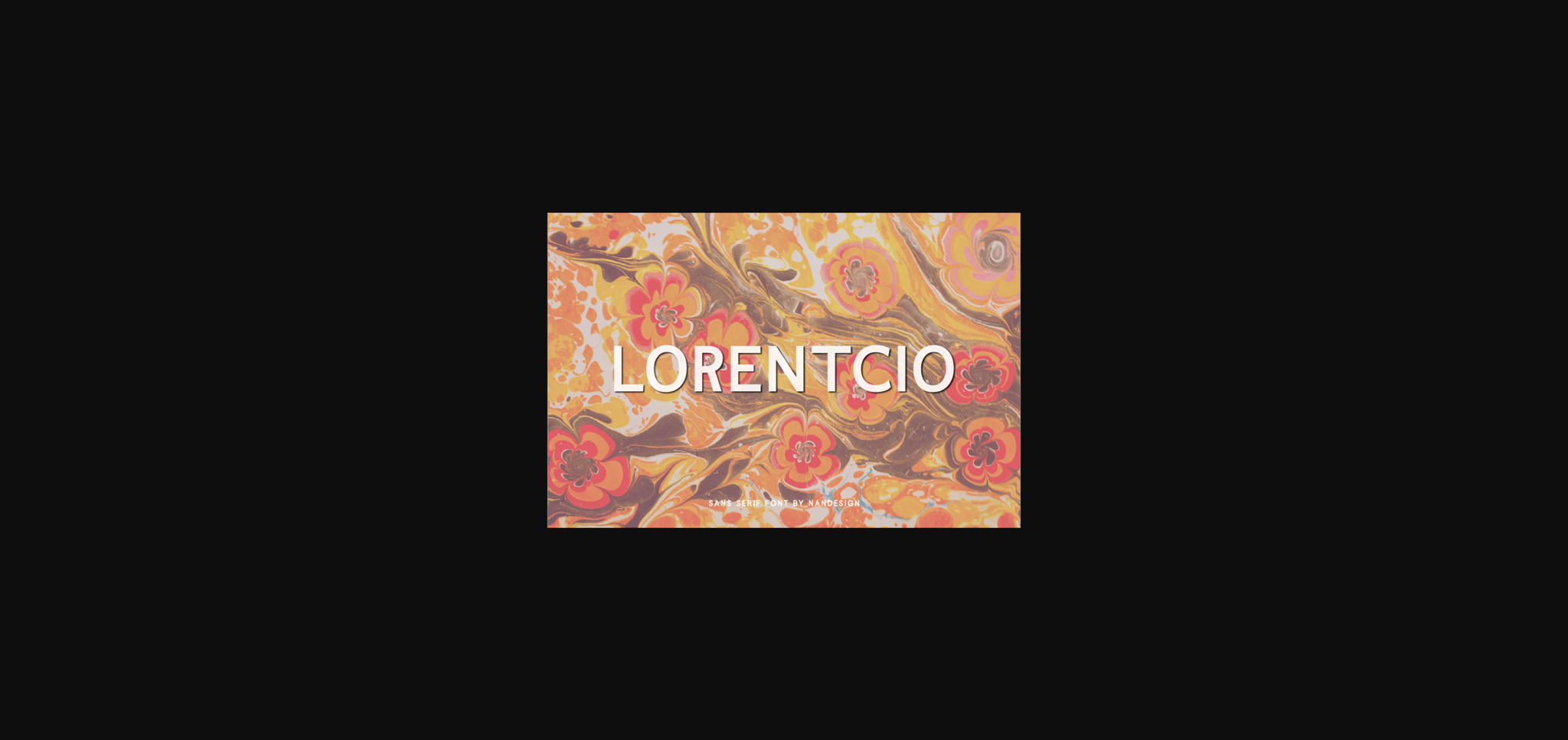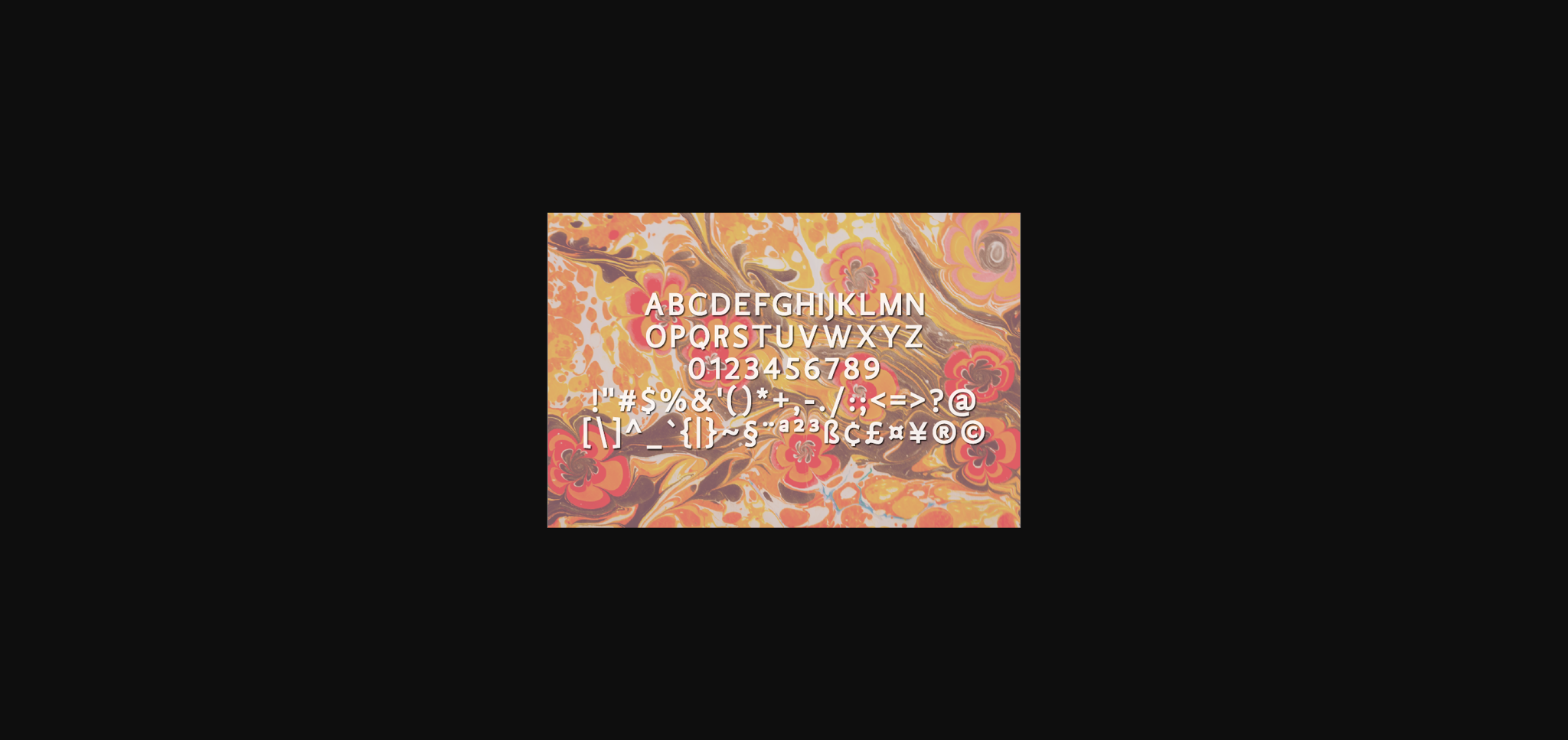
Lorentcio Font
About Lorentcio Font
Lorentcio is a simple and natural sans serif font. It can easily be matched to an incredibly large set of projects, so add it to your creative ideas and notice how it makes them stand out!